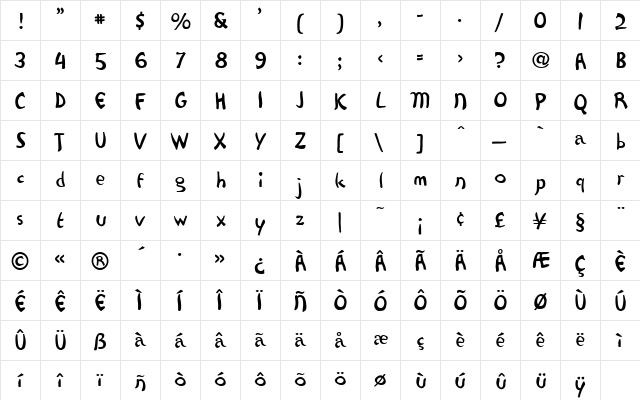
TLLePetitTrottin Medium
Design Context for TLLePetitTrottin Typeface
TLLePetitTrottin is a composed and adaptable typeface that performs quietly and consistently across a wide range of design contexts.